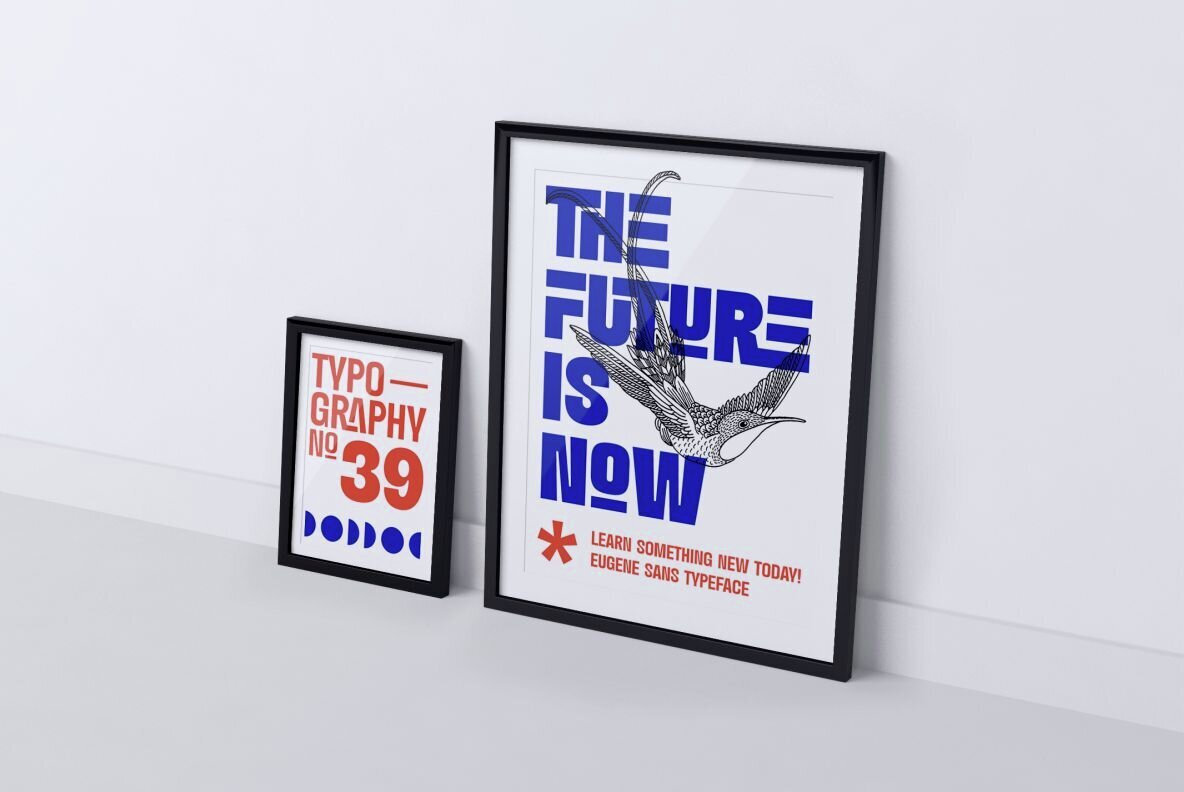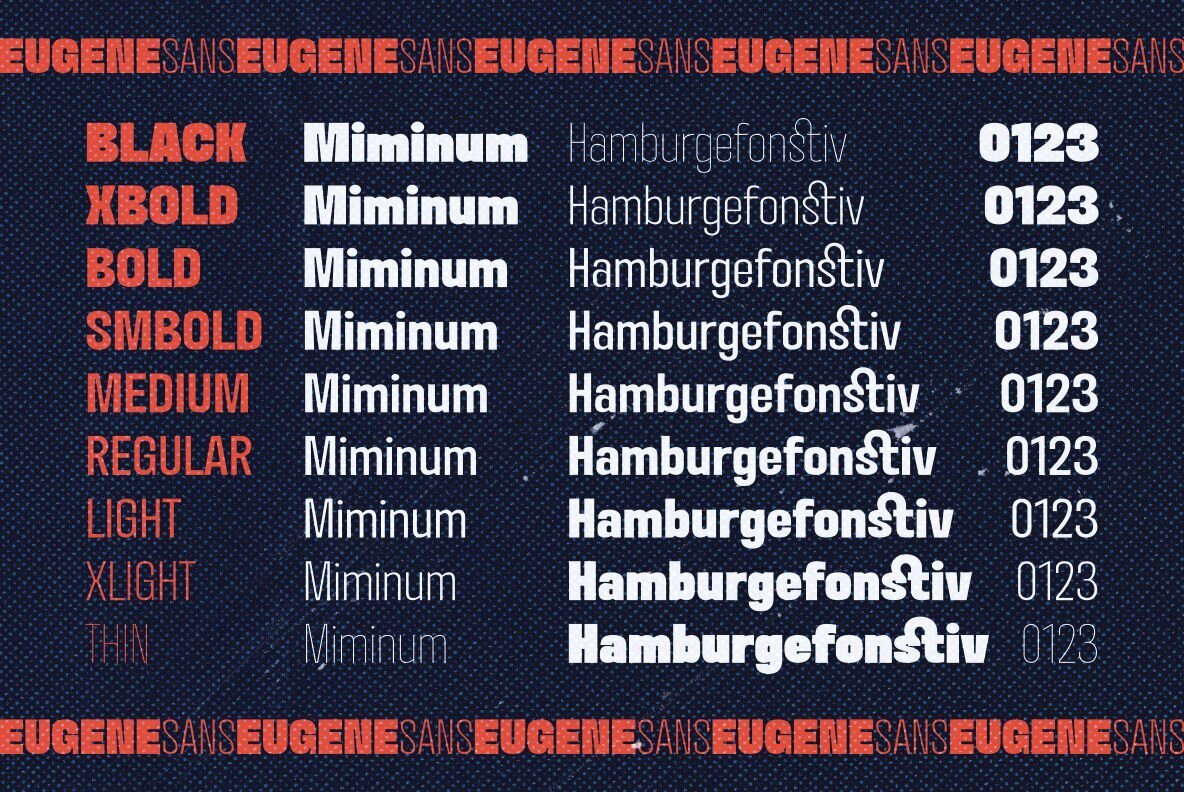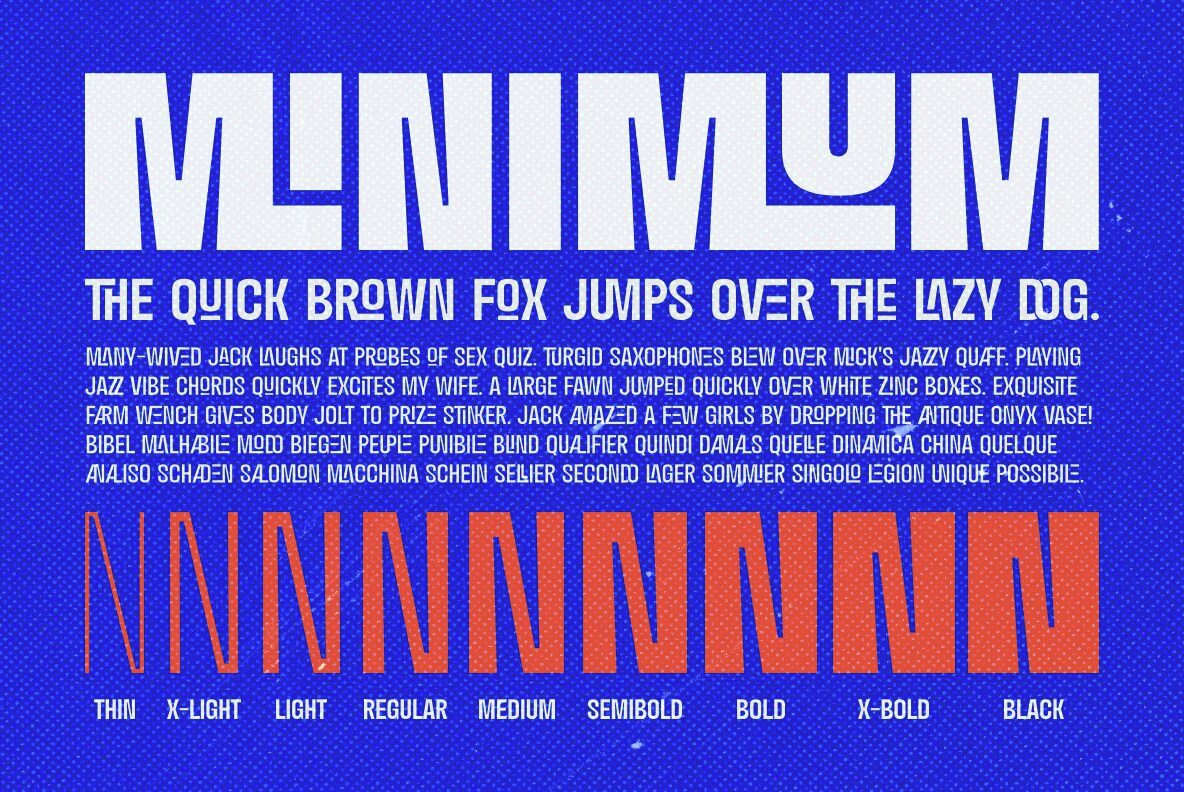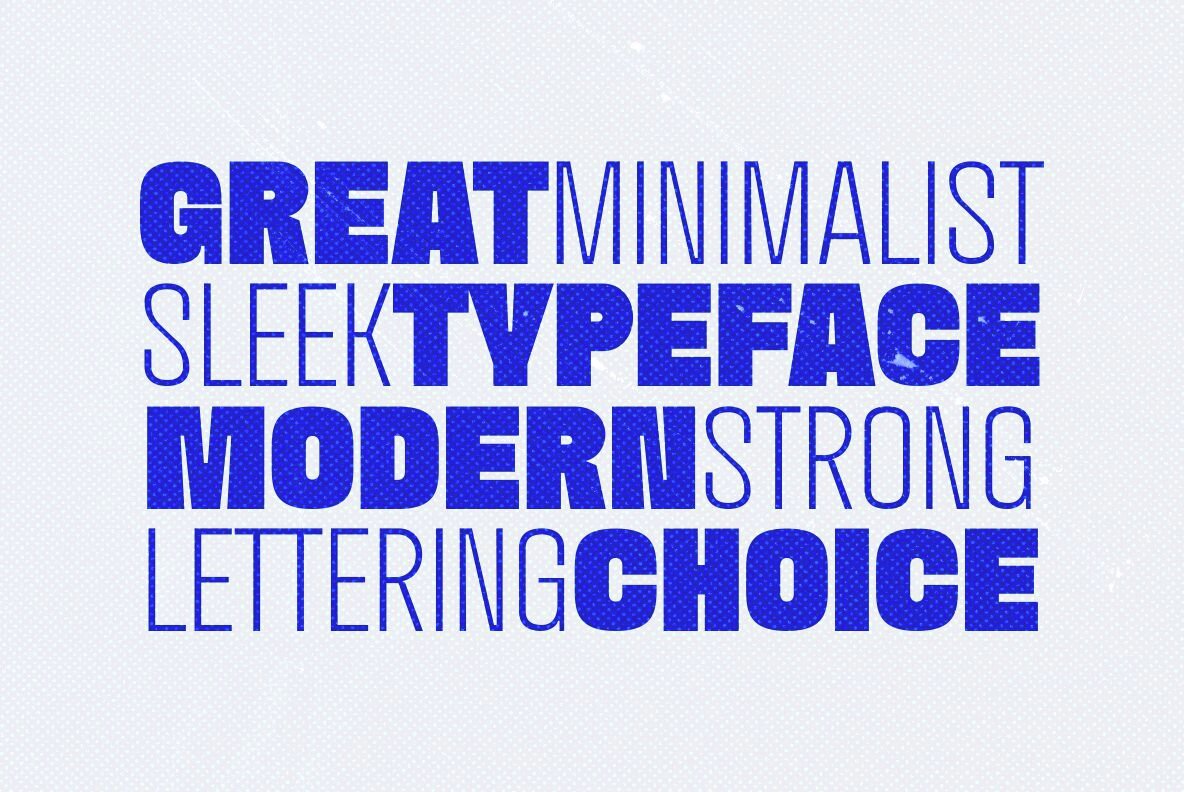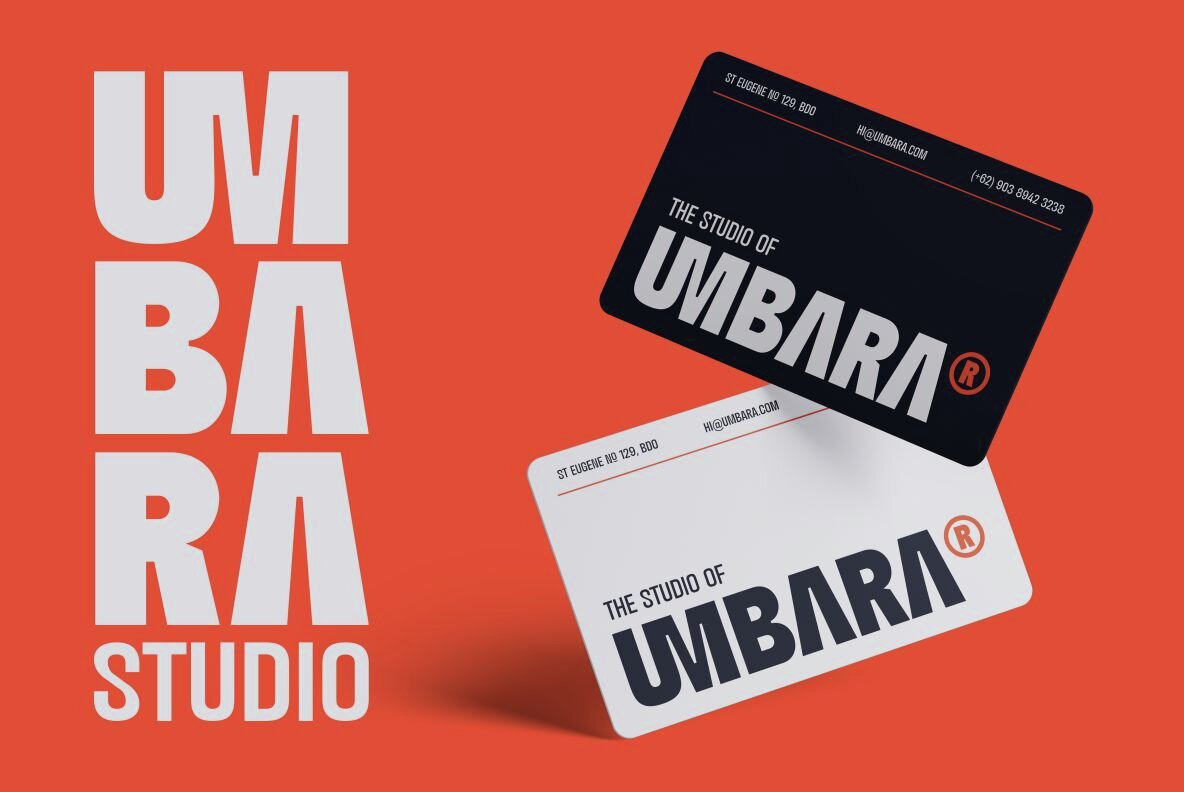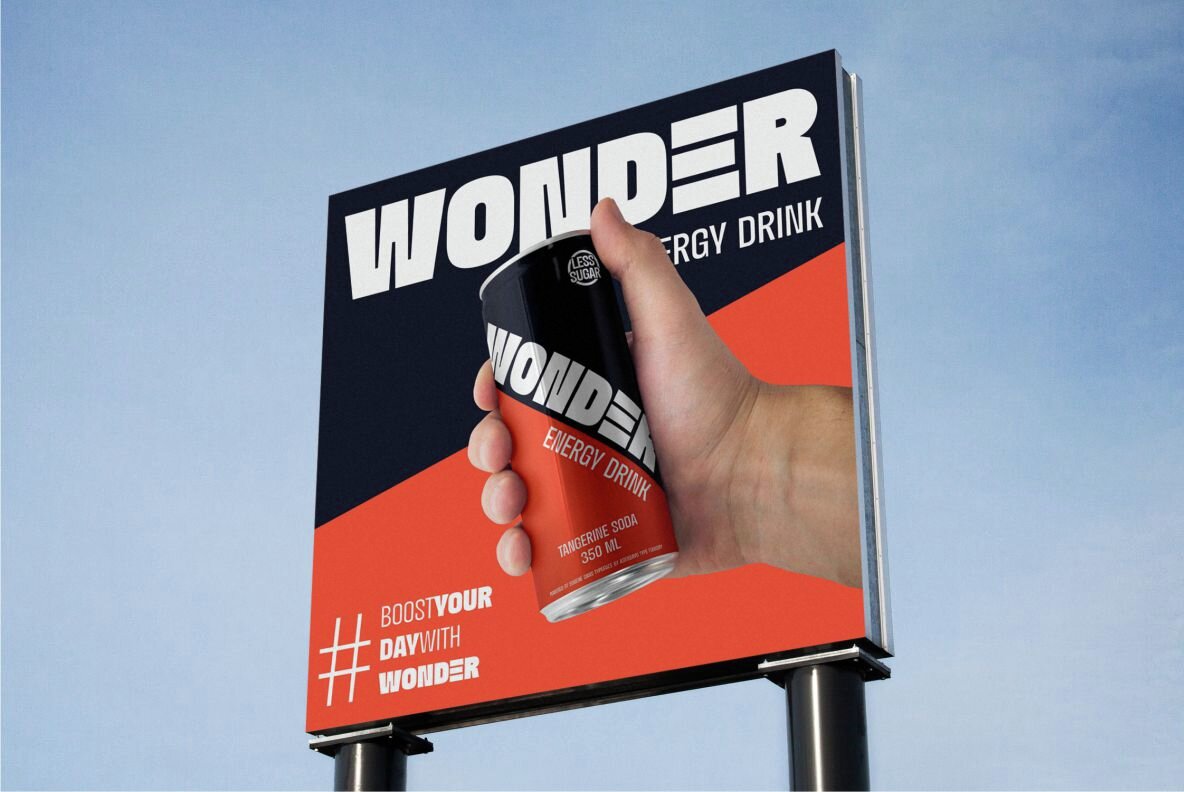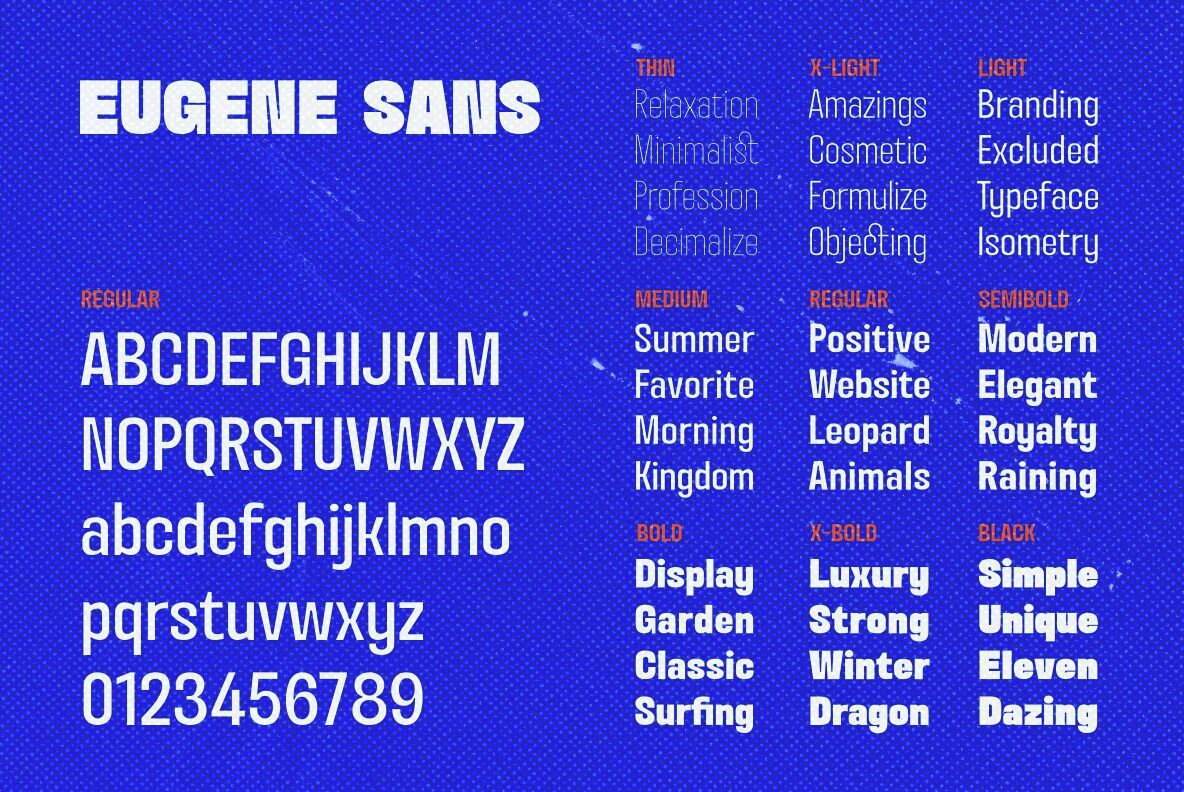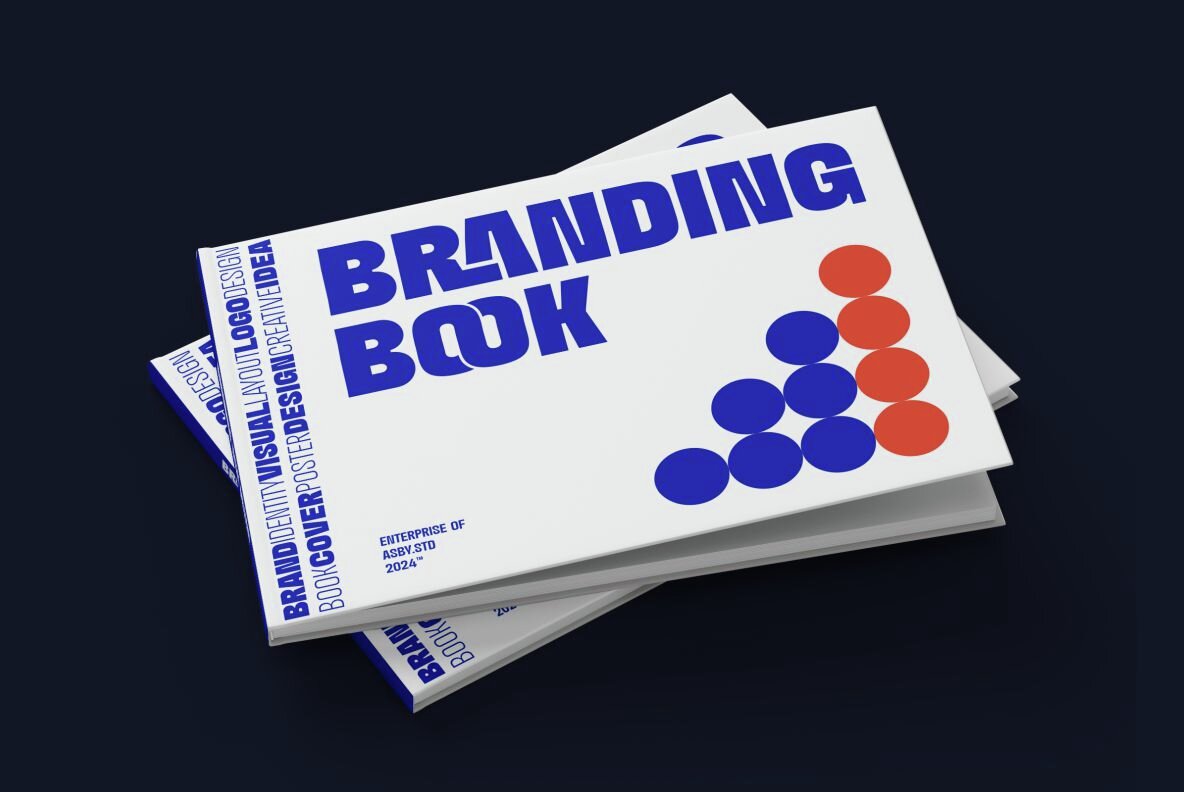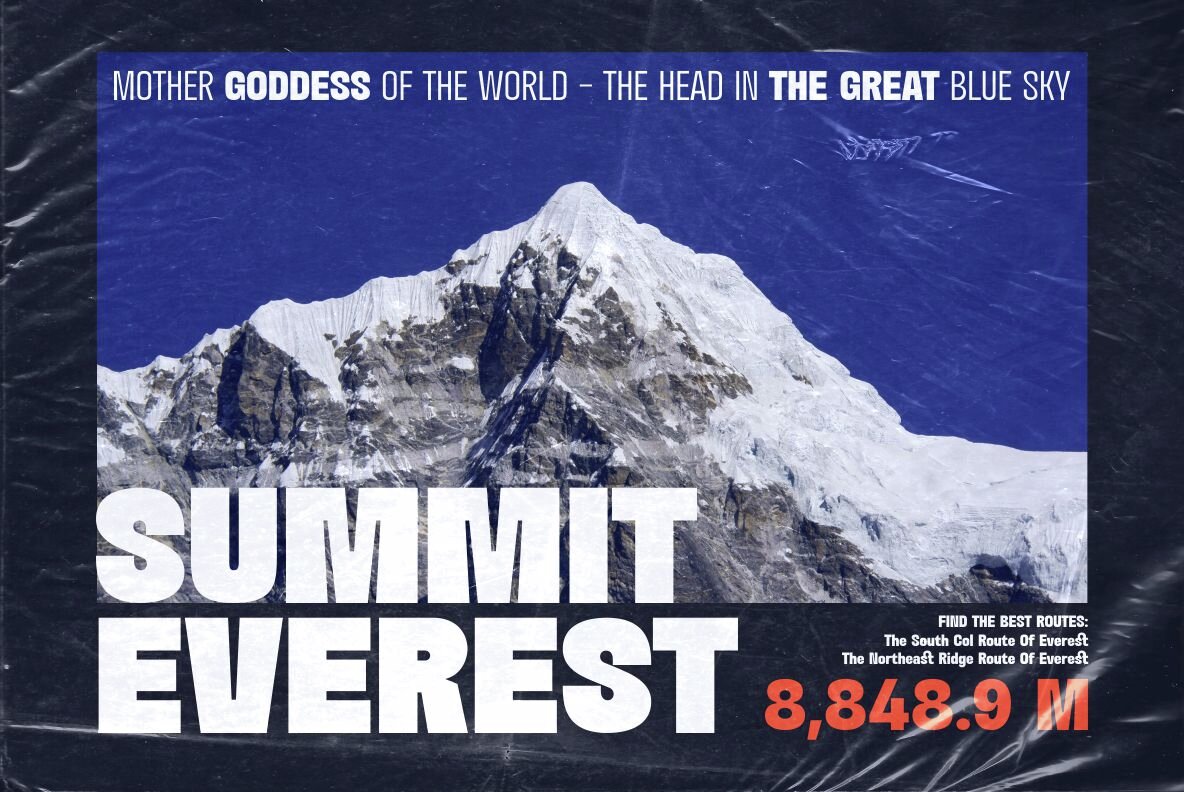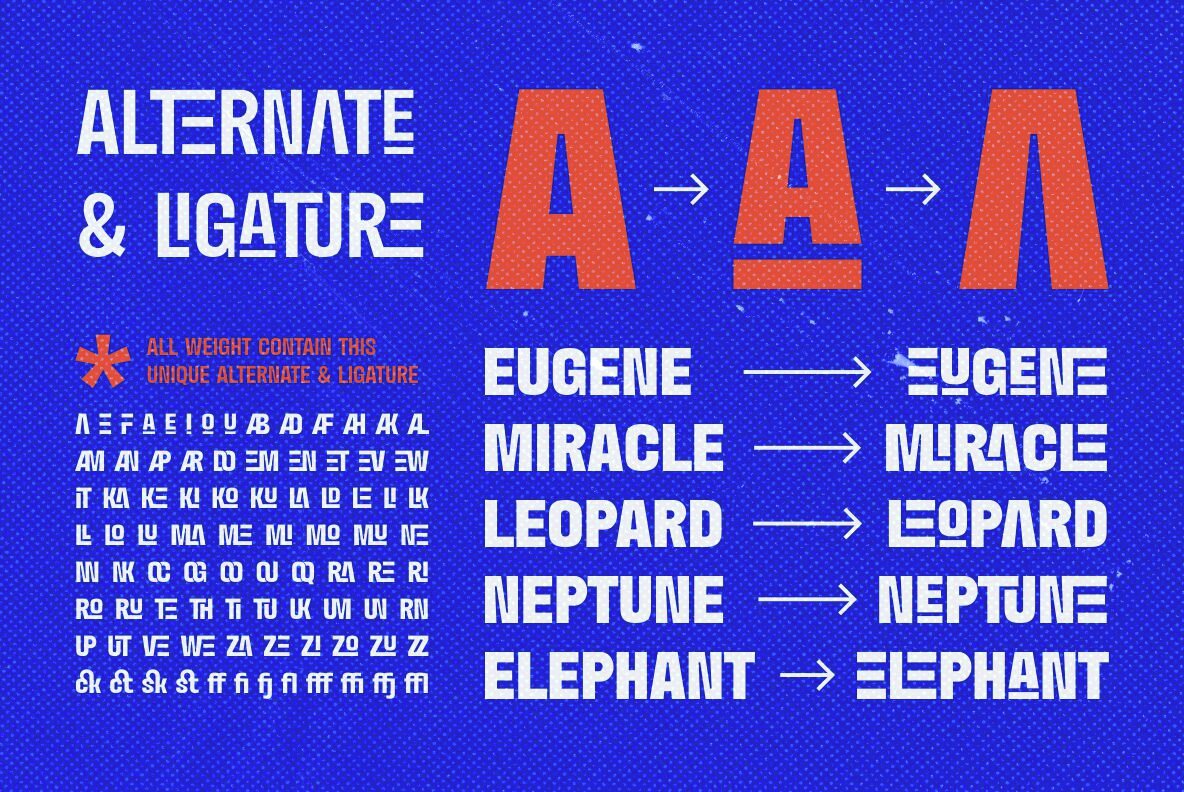
Eugene Sans Font
Eugene Sans is a modern grotesque sans serif font family consisting of 9 styles. It has a clean and functional design that balances geometric precision with subtle humanist elements. It also has a simple appearance that makes it versatile and adaptable to a variety of design contexts. This font is suitable for trendy packaging label designs, unique desired logos, poster designs, headlines and many more. Eugene Sans font features: standard glyphs, stylistic alternates, stylistic ligatures, symbol, punctuation and multiple languages supported.